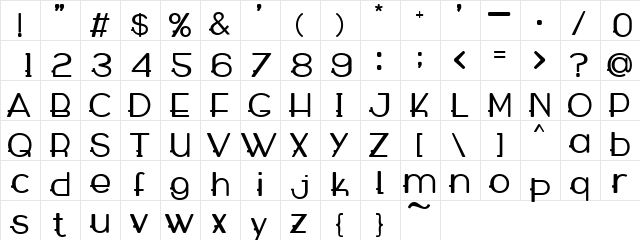
WABECO Bold
Design Context for WABECO Typeface
WABECO offers clean, dependable letterforms without strong stylistic allegiance, making it a practical choice for designers who need flexibility. The heavy weight commands attention and anchors typographic hierarchies.